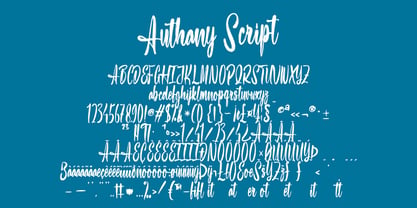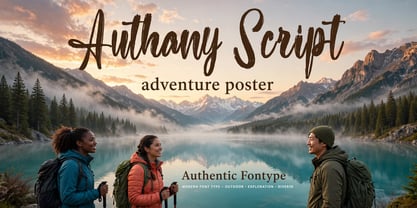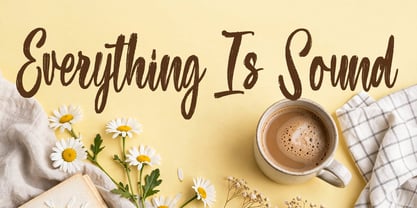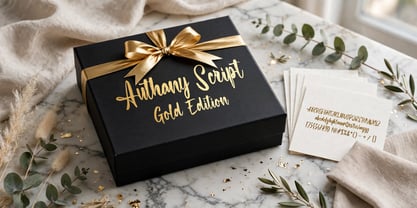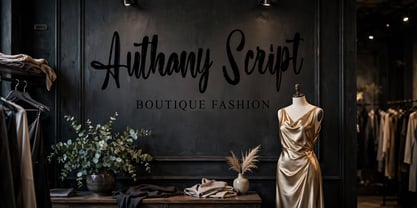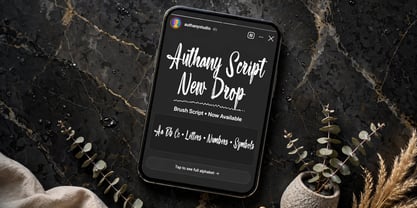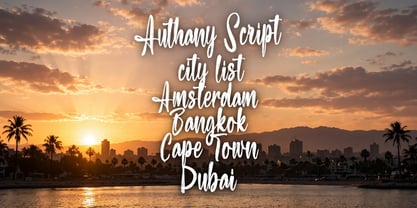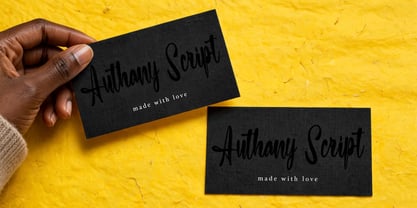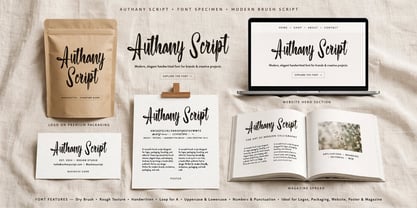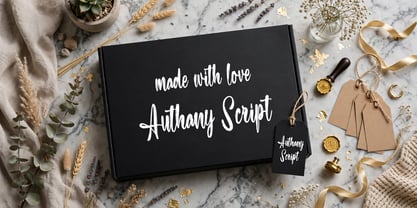
Authany Script
by Ayska
The Authany Script Font Family was designed by Dhoni Trihatmoko and published by Ayska. Authany Script contains 1 styles. More about this family
Introducing Authany Script - the nexus of modern elegance and delicate allure encapsulated within a handwritten font. This masterpiece radiates refinement and opulence, imbuing your designs with a seamless, tender touch. With its relaxed, sinuous style replete with a dash of funk, Authany Script celebrates the genuine rhythm of natural brush lettering. Its understated texture, evocative of a brush's whispered touch, is the final captivating nuance of Authany Script. This makes it a flawless fit for audacious affirmations and unforgettable branding.
Designers: Dhoni Trihatmoko
Foundry: Ayska